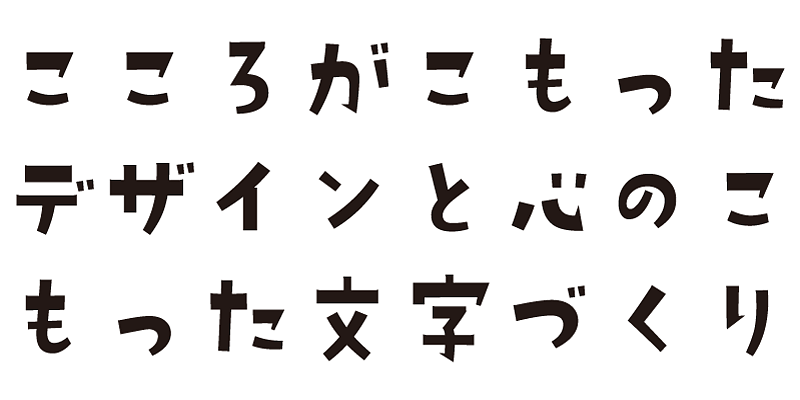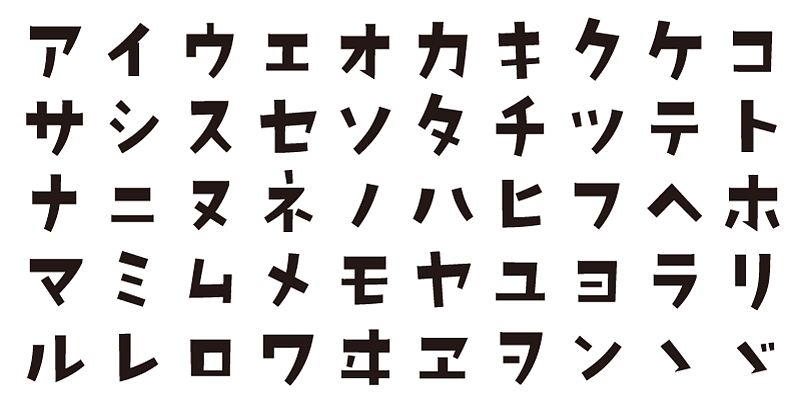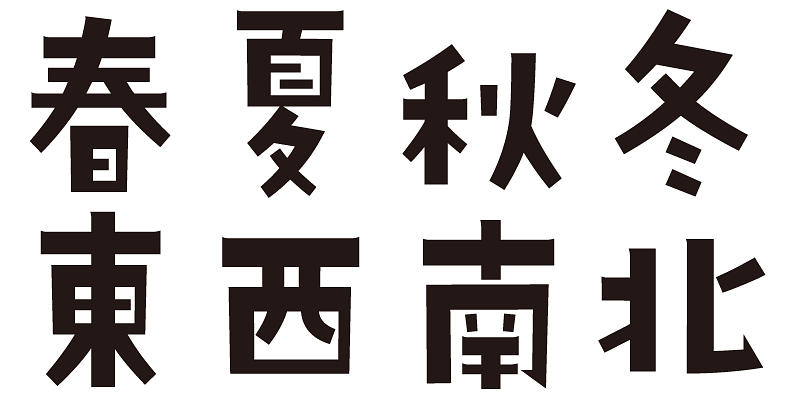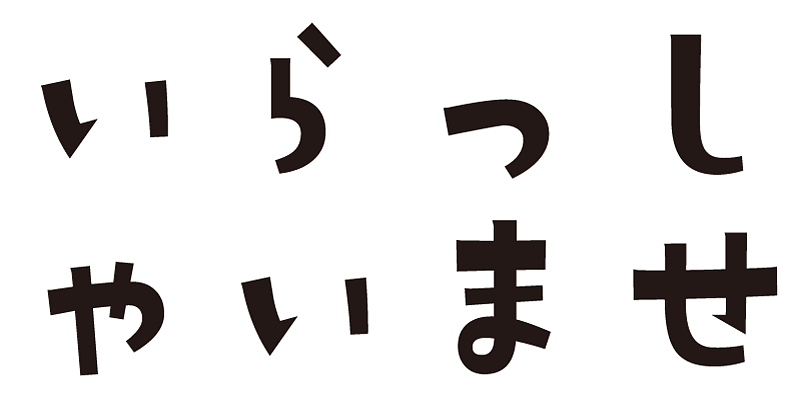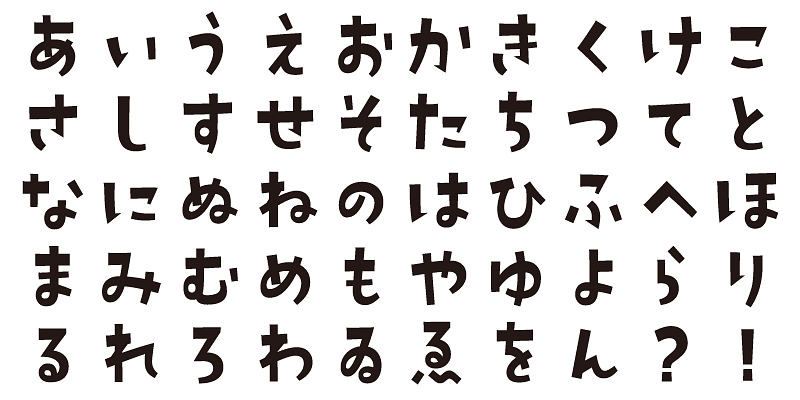
This typeface evokes the image of a clear blue sky, a pleasant breeze, and a relaxed, leisurely atmosphere, suitable for joyful scenes.
This font includes 1,000 kanji characters, as well as hiragana, katakana, alphanumeric characters, and punctuation marks.
We design typefaces with the hope that they will add underlying meaning to words expressed. We wish the user to feel good and experience comfort and joy when using these typefaces.